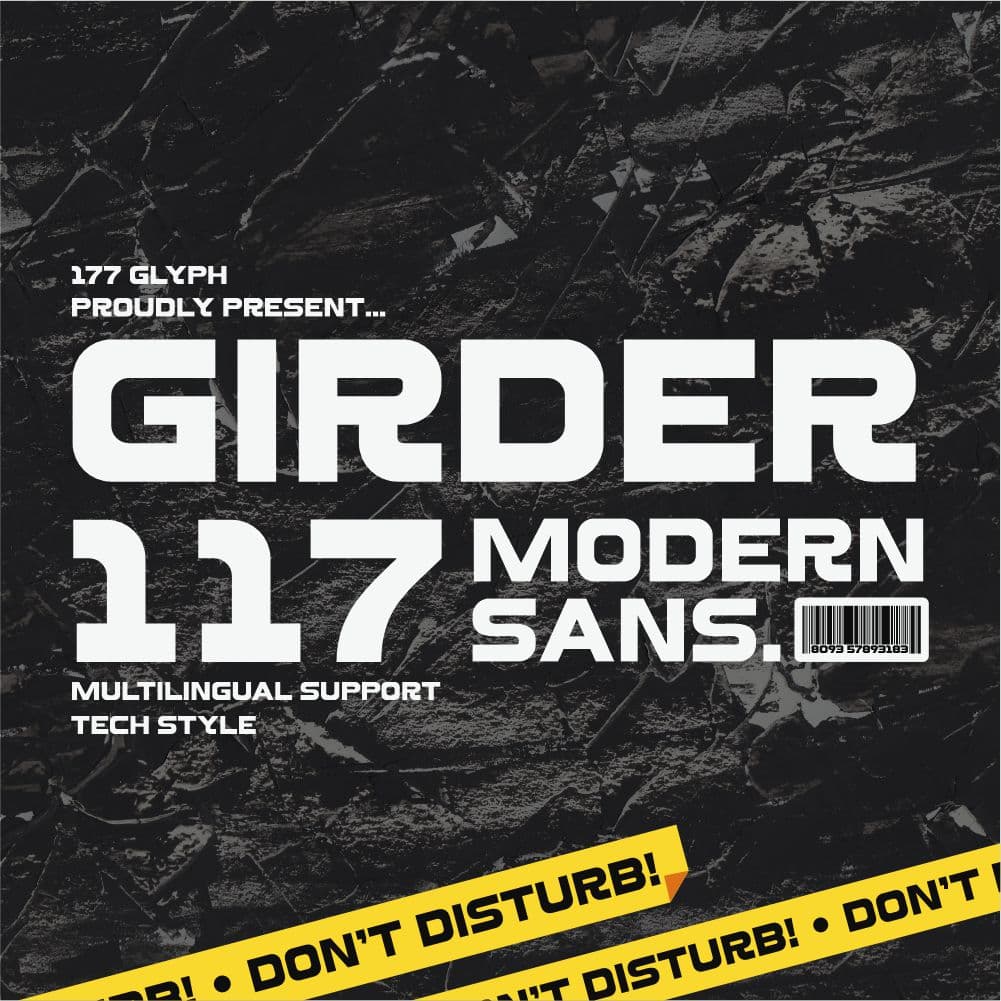
<p>Introducing *<em>Girder *</em>is a bold, futuristic sans-serif typeface with a strong industrial and technological aesthetic. It features sharp edges, geometric letterforms, and a robust structure, making it highly suitable for modern branding, sci-fi themes, and high-impact designs. The thick strokes and blocky appearance enhance its visibility, ensuring excellent readability even in bold layouts. This font is ideal for posters, headlines, warning signs, and space-themed projects due to its powerful and mechanical feel.</p>